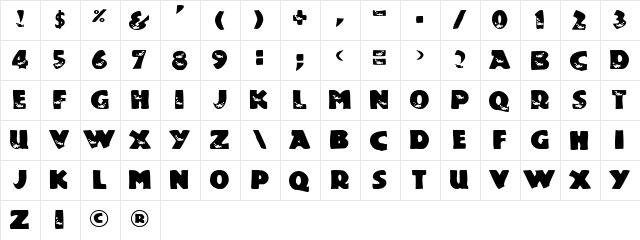
Touch Of Nature Regular
| Foundry | UnAuthorized Type |
| Designer | Ben McGehee |
Design Context for Touch Of Nature Typeface
Touch Of Nature is a composed and adaptable typeface that performs quietly and consistently across a wide range of design contexts.